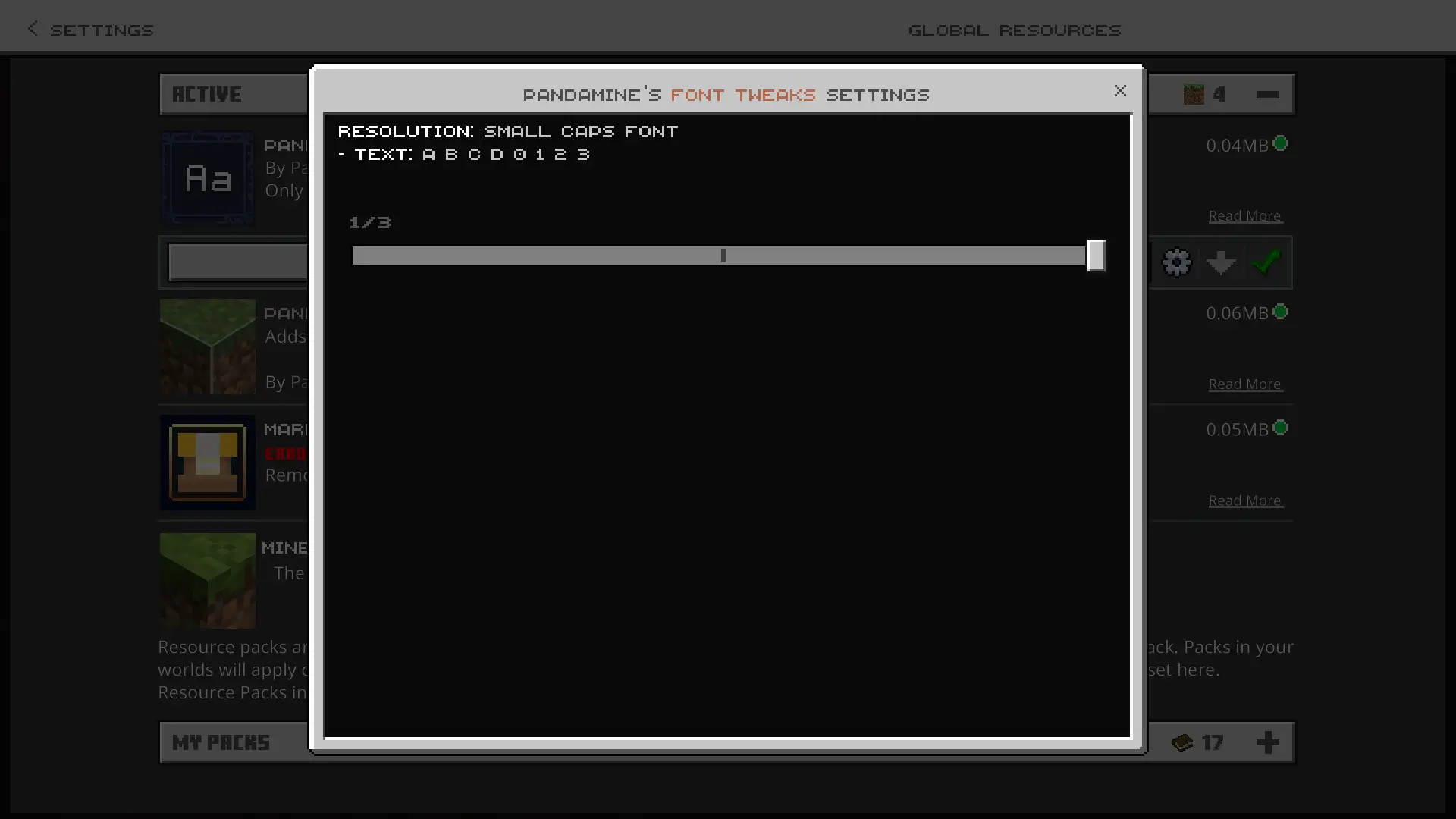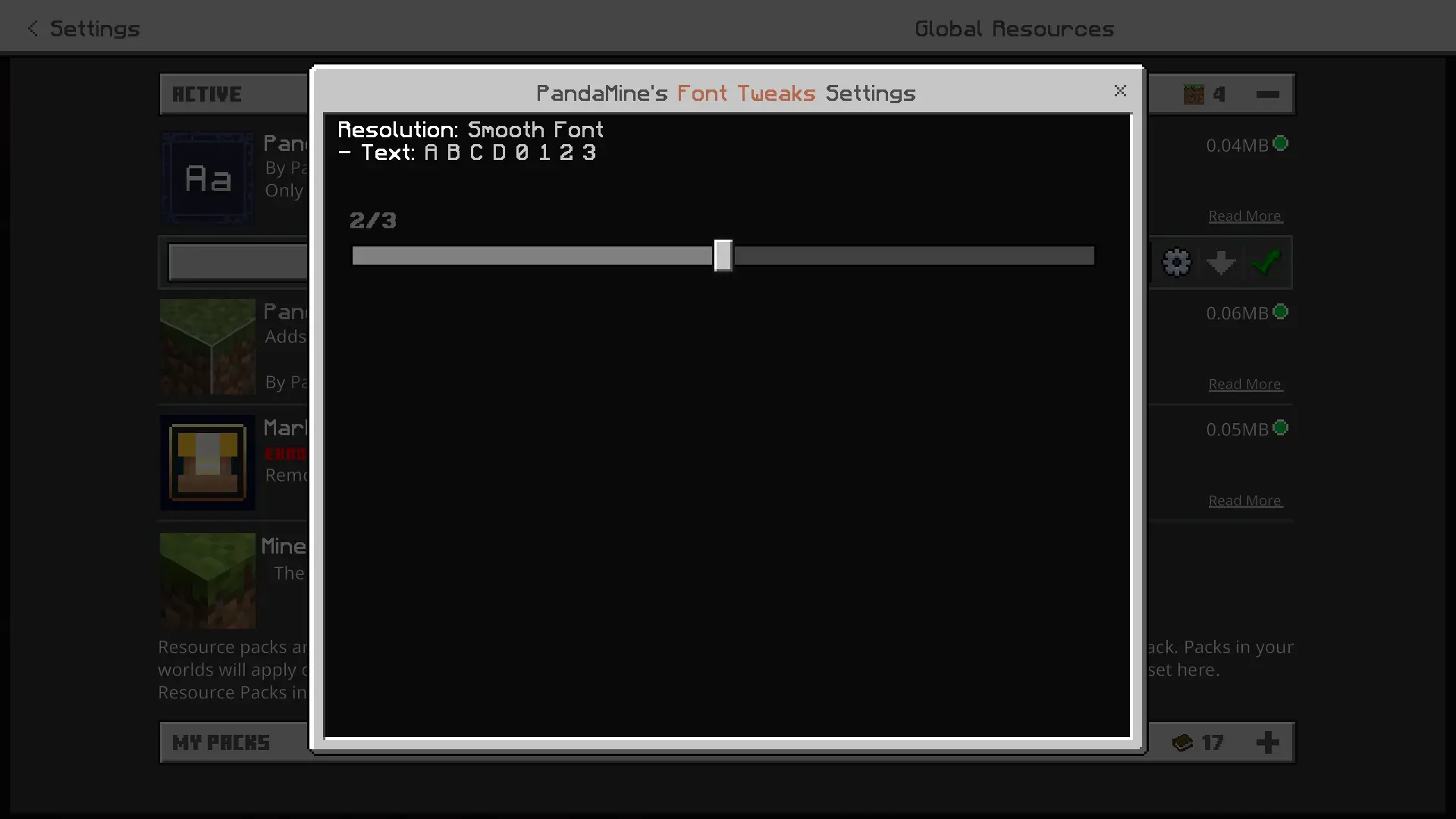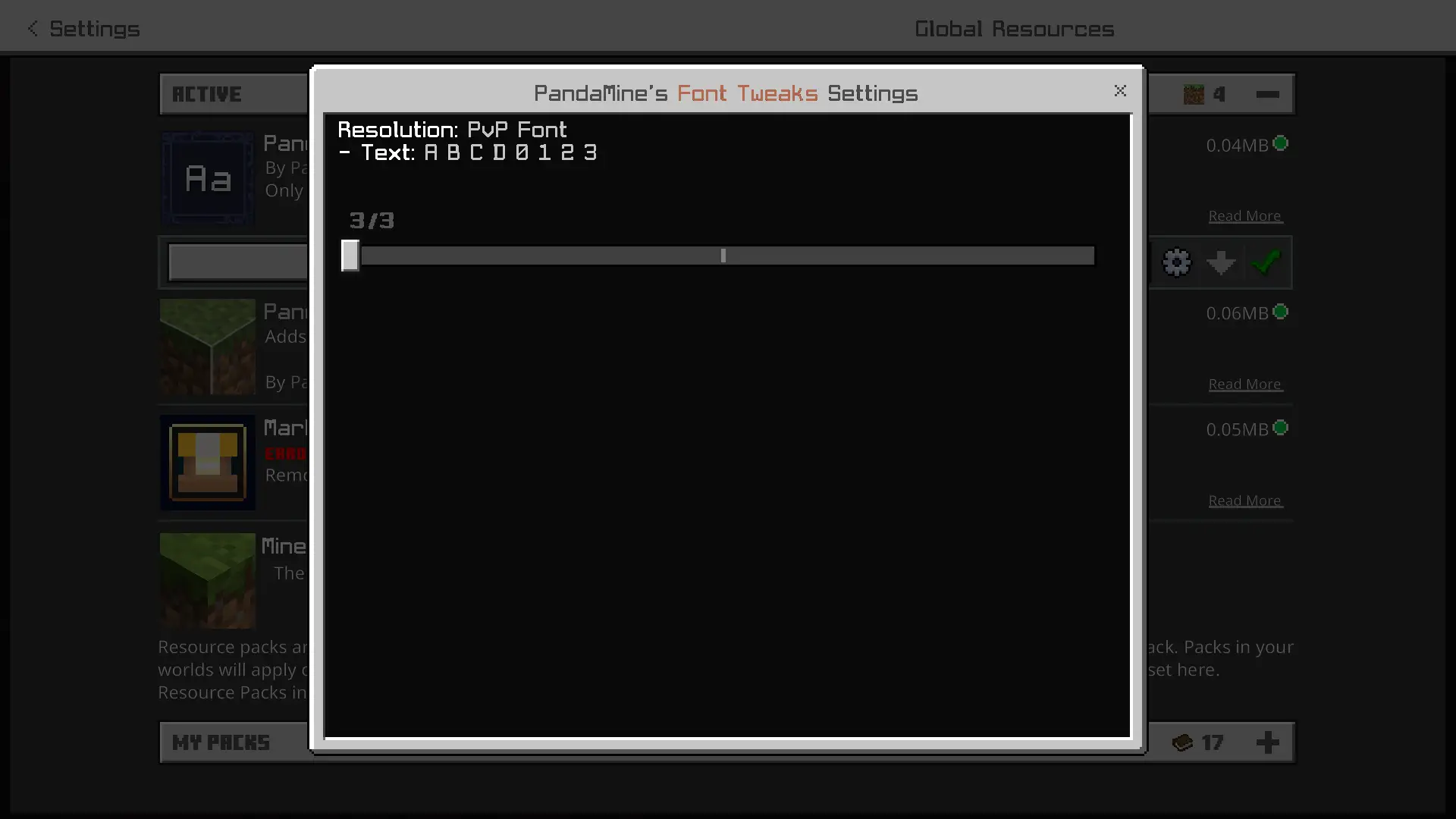
PandaMine's Font Tweaks - Small caps Font, Smooth Font, PVP Font
Adds multiple custom fonts to Minecraft: Small Caps (Minecraft-Five), Smooth 32x, and a PvP font; compatible with Actions & Stuff and other packs.
Subpacks:
- Small Caps (Minecraft-Five) Font
- Smooth (32x) Font
- PVP Font